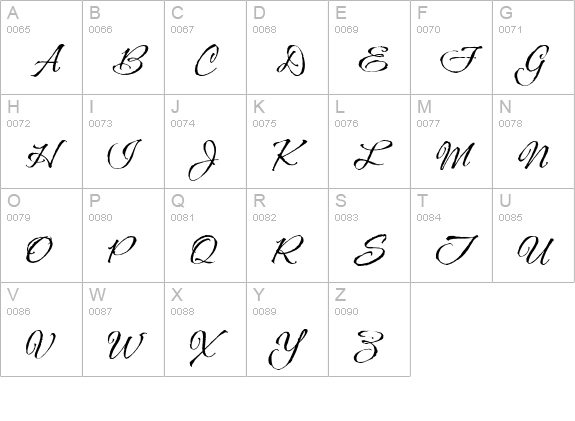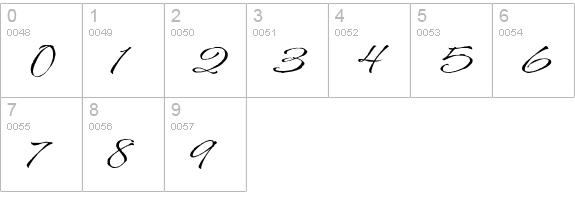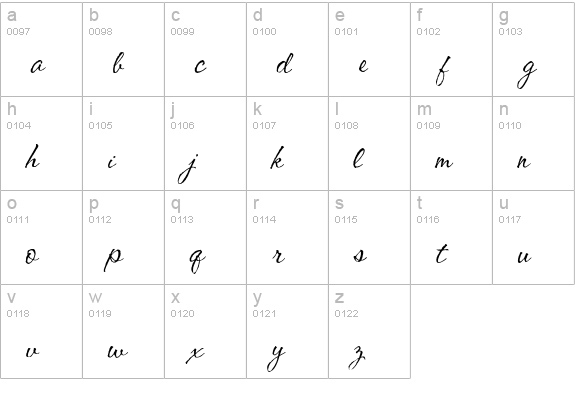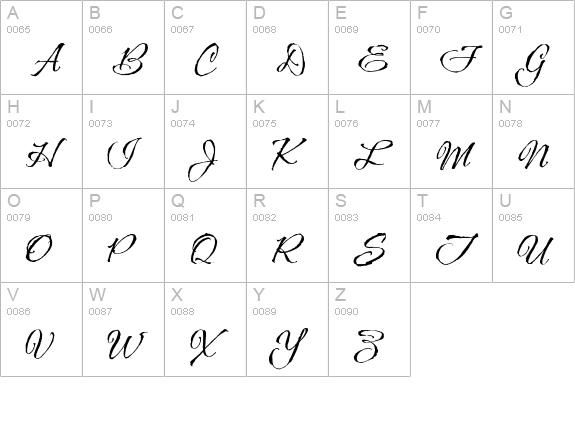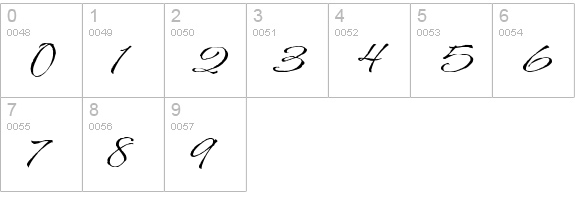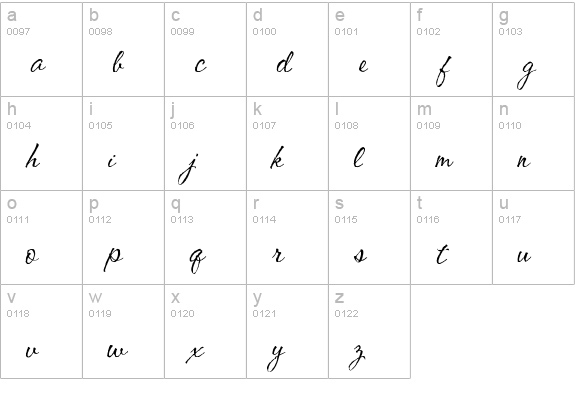
Introducing the captivating CAC Shishoni Brush font, a delightful display typeface that exudes elegance and charm. With its unique brush strokes and artistic flair, this font is perfect for adding a touch of sophistication to your designs. Whether you're working on invitations, logos, posters, or any other creative project, CAC Shishoni Brush is sure to make a bold statement. The best part? This stunning font is available for free download at FontsMarket.com. That's right, you can easily access and use CAC Shishoni Brush in all your projects without any cost. Embrace the beauty and versatility of this font today and elevate your design work to new heights.